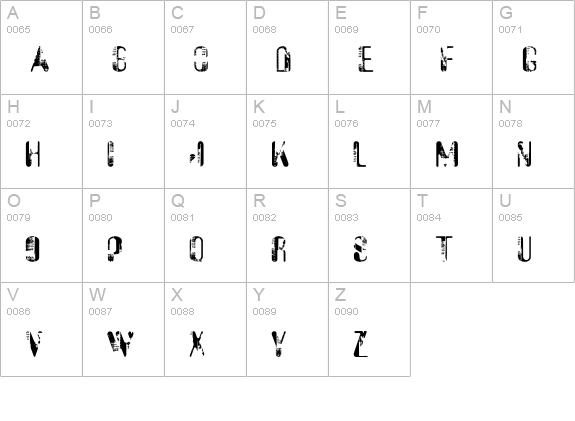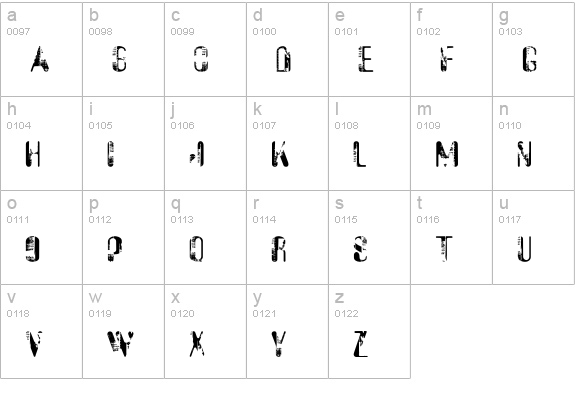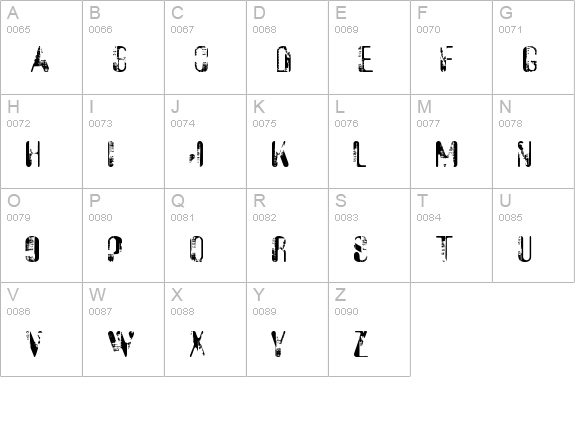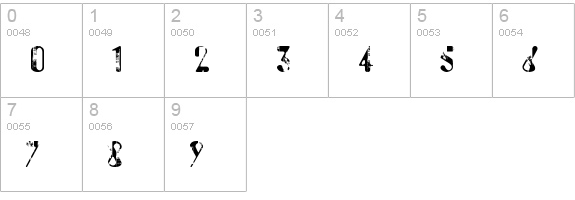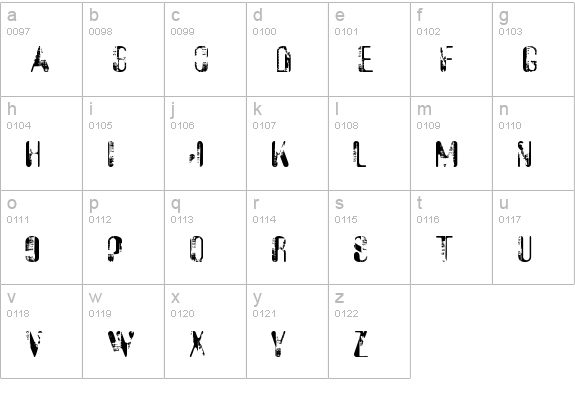
Sucata Spacial Font Details
Sucata Spacial is a visually striking and modern typeface that exudes a sense of futuristic elegance. Its unique design features sharp edges and geometric shapes that give it a distinctive and edgy look. The font is perfect for creating eye-catching headlines, logos, and branding materials that demand attention. What sets Sucata Spacial apart is not only its bold and contemporary style, but also the fact that it is completely free to use. Whether you're a designer looking to add a touch of sophistication to your projects or a business owner seeking a fresh look for your brand, this font is a versatile choice that will make a lasting impression. You can easily access and download Sucata Spacial for free at FontsMarket.com, where it is available for both personal and commercial use. Don't miss out on this opportunity to elevate your designs with this modern and dynamic typeface that is sure to captivate your audience.